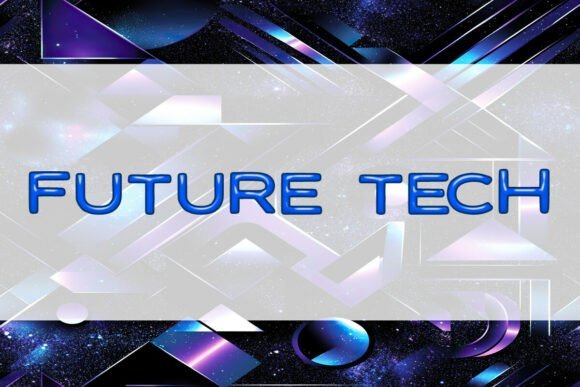
Unlock Tomorrow’s Typography Today
Have you ever stared at a blank canvas, waiting for inspiration to strike? It’s that moment when creativity takes over, and the possibilities seem endless. The spark of an idea ignites, and before you know it, you’re envisioning a world of innovative designs. For designers, this is the sweet spot where imagination meets reality.
Introducing the Future Tech Font, a game-changing typography that breathes life into your designs. This futuristic font is not just a style, but a statement piece that elevates your branding to new heights. Whether you’re crafting a vibrant magazine, designing a Cricut project, or creating a social media presence, the Future Tech Font adds an edge that sets you apart.
Future Tech Font Key Features
- Font Family: A futuristic sans-serif font family designed for modern tech and sci-fi applications.
- Character Set: Includes a wide range of characters, including Latin, Cyrillic, Greek, and various symbols, making it suitable for multilingual applications.
- Unique Characteristics: Features a sleek, modern design with clean lines, geometric shapes, and a futuristic feel, making it ideal for tech-related projects, such as UI/UX design, video games, and sci-fi illustrations.
Future Tech Font Review
Overall, I think the “Future Tech Font” has some great qualities, but it also has some areas for improvement. Let’s start with the good stuff:
- ✨ The font is very versatile and can be used for a wide range of applications, from tech and science to futurism and space exploration.
- ✨ The font’s bold and futuristic aesthetic makes it perfect for titles, headings, and other high-impact elements.
- ✨ The font is highly legible, even at small font sizes, making it suitable for body text as well.
- ⚠️ The font may not be suitable for long blocks of text, as it can start to feel cluttered and overwhelming.
- ⚠️ The font’s futuristic aesthetic may not be to everyone’s taste, and some users may find it too gimmicky or over-the-top.
- ⚠️ The font’s boldness can make it difficult to read in certain contexts, such as on low-contrast backgrounds.
Overall, I think the “Future Tech Font” is a great choice for projects that require a bold, futuristic aesthetic. However, it’s not a one-size-fits-all solution, and users should carefully consider the context in which they will be using the font.
Future Tech Font is ideal for:
– Futuristic and high-tech designs
– Science fiction and technology-related projects
– Presentations and documents about innovation and progress
– Titles and headings for a futuristic look
Alternatives to Future Tech Font
Inter is a modern sans-serif font designed by Rasmus Andersson. It is a highly legible font with a geometric structure, making it suitable for digital use. Inter is a great alternative to Future Tech Font as it offers a similar aesthetic but with a more versatile range of weights and styles.
Montserrat is a sans-serif font designed by Julieta Ulanovsky. It was inspired by the urban landscape of Montserrat, a mountain range in Argentina. Montserrat is a great choice for titles and headings due to its strong, geometric structure, making it a suitable alternative to Future Tech Font for titles and headings.